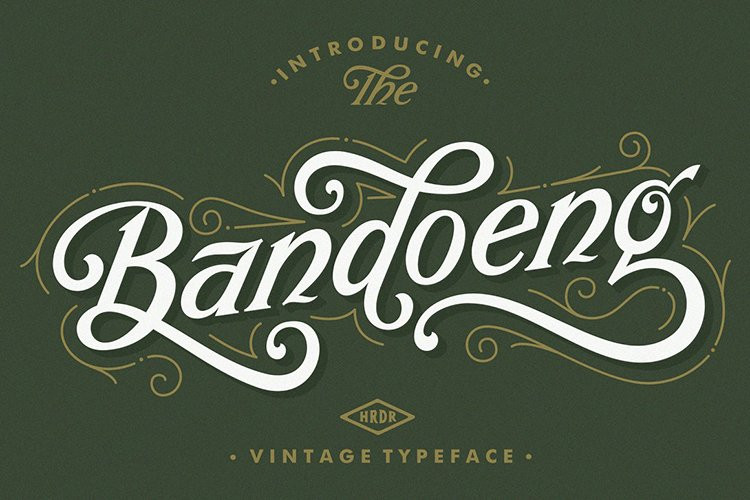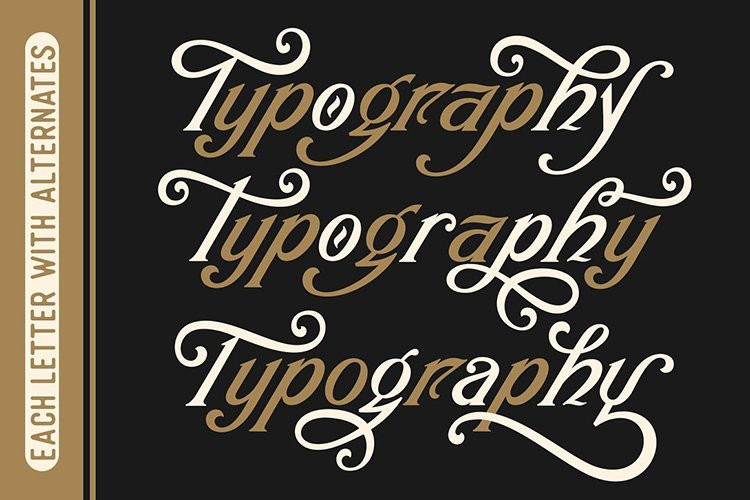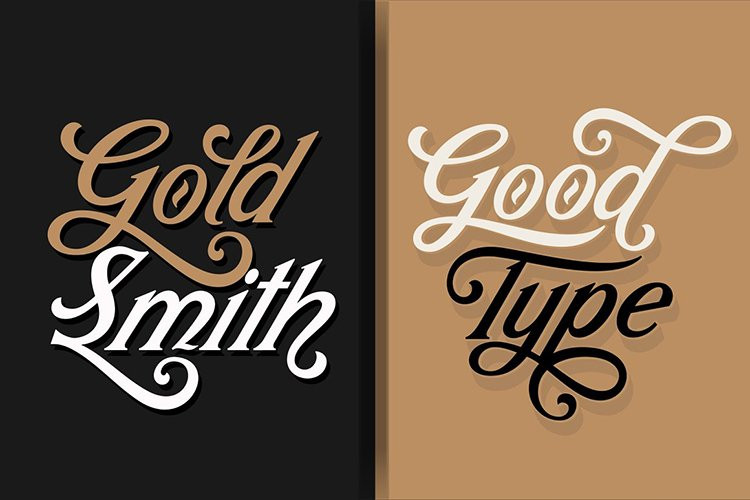
Bandoeng Font
Bandoeng Font was inspired by the cover of the 1920 Nebiolo book.
It is perfect for product logo, signage, branding projects, headlines, posters, packaging, clothing brand logos, Vintage design and much more.